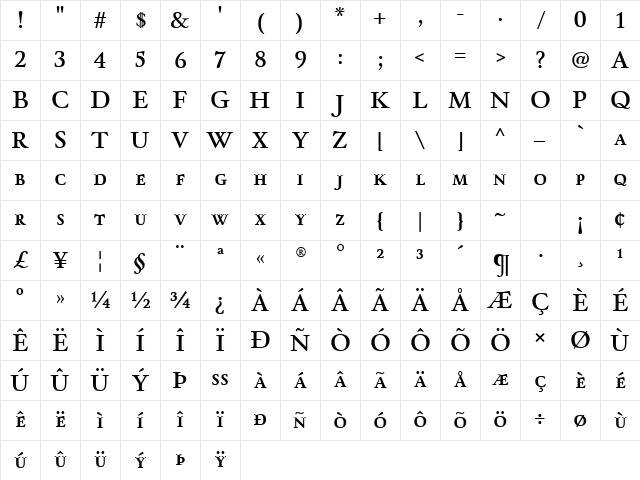
Winthorpe SmallCaps SemiBold
Style: SmallCaps SemiBold
Winthorpe Family
Design Context for Winthorpe
Winthorpe is a composed and adaptable typeface that performs quietly and consistently across a wide range of design contexts. Its bold stroke weight gives it real presence on the page.